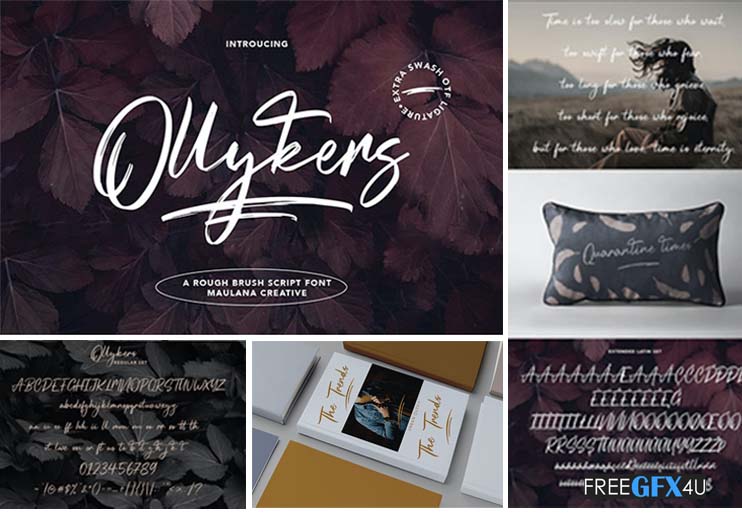
Natural Font Bundles
Here in this post, you can Free Download Natural Font Bundles compress files through the below link. The best font collection with 16 typefaces, modern script, and brush font face. Perfectly to use on any design project such as wedding invitations, letterhead, logos, T-shirts, web promotion, cover books, printing material, scrapbooking, silhouette machine, Circuit machine, embroidery, embedding on web templates, etc. Also available in web font format. You Can Also Download Gallero Font.
All font comes with OpenType features. Swash, Stylistic Set, Stylistic Alternates, Ligatures. With OpenType features, you can mix and match styles for all glyphs with very easy to make a beautiful design as great as you can. You Can Also Download 50 Script Fonts Bundle.